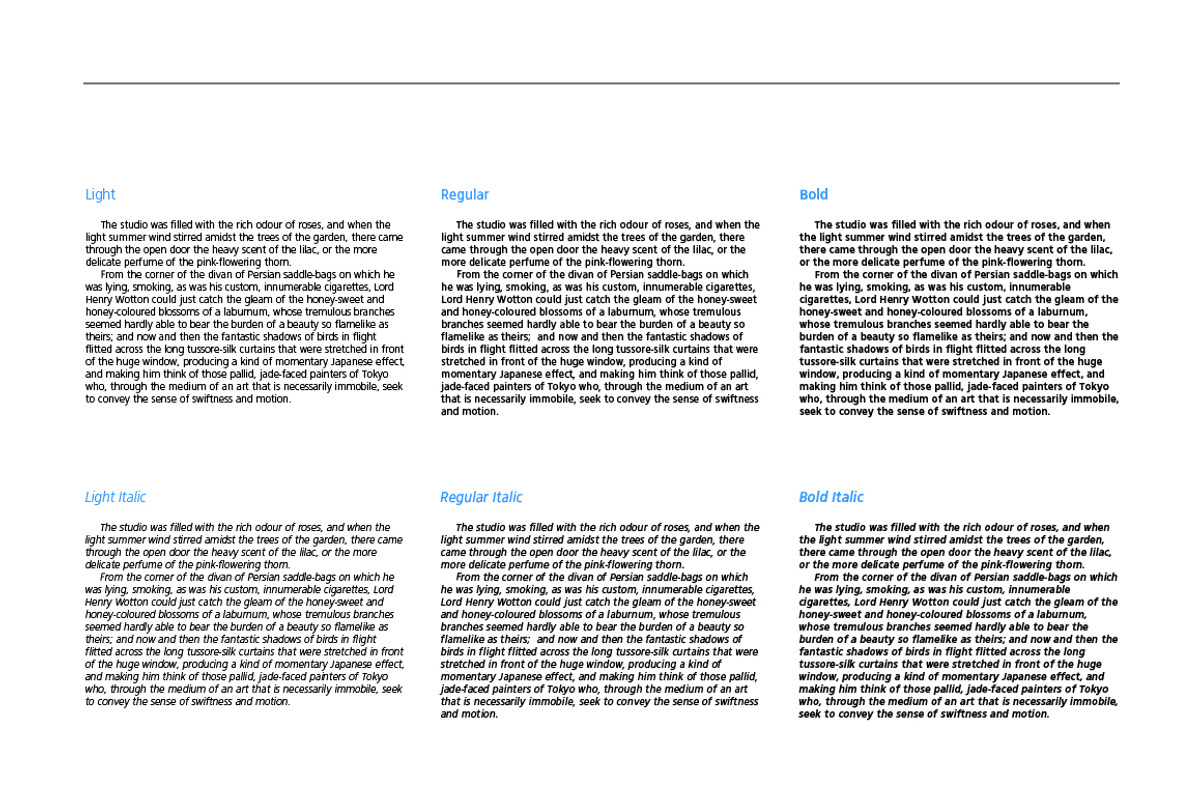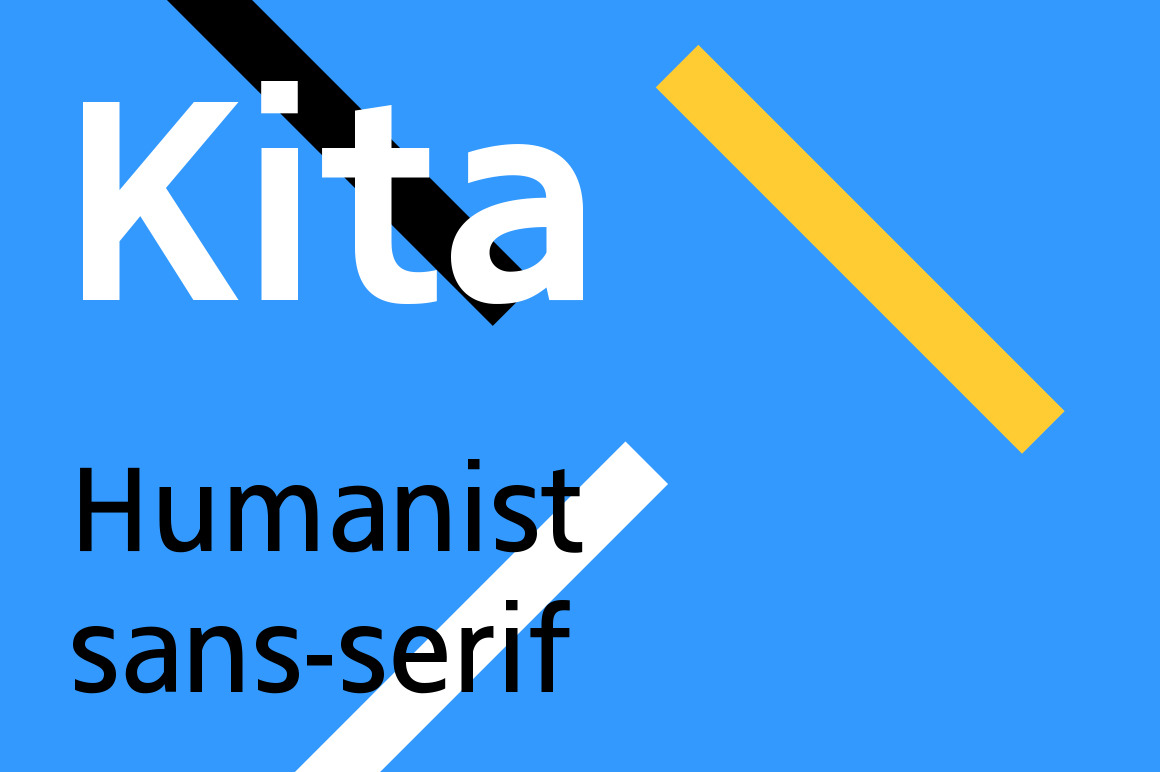
Kita - Humanist sans-serif typeface
Kita is a modern sans-serif typeface, intended to be clear and highly legible at a distance or at small text sizes. It has inspired by the Humanist sans serif typeface such as Frutiger but also the traditional Swiss typography Helvetica and Univers. The family contains, for now, 3 weight, Light, Regular and Bold with their own italic versions. Each of them has about 620 glyphs and 90 languages.